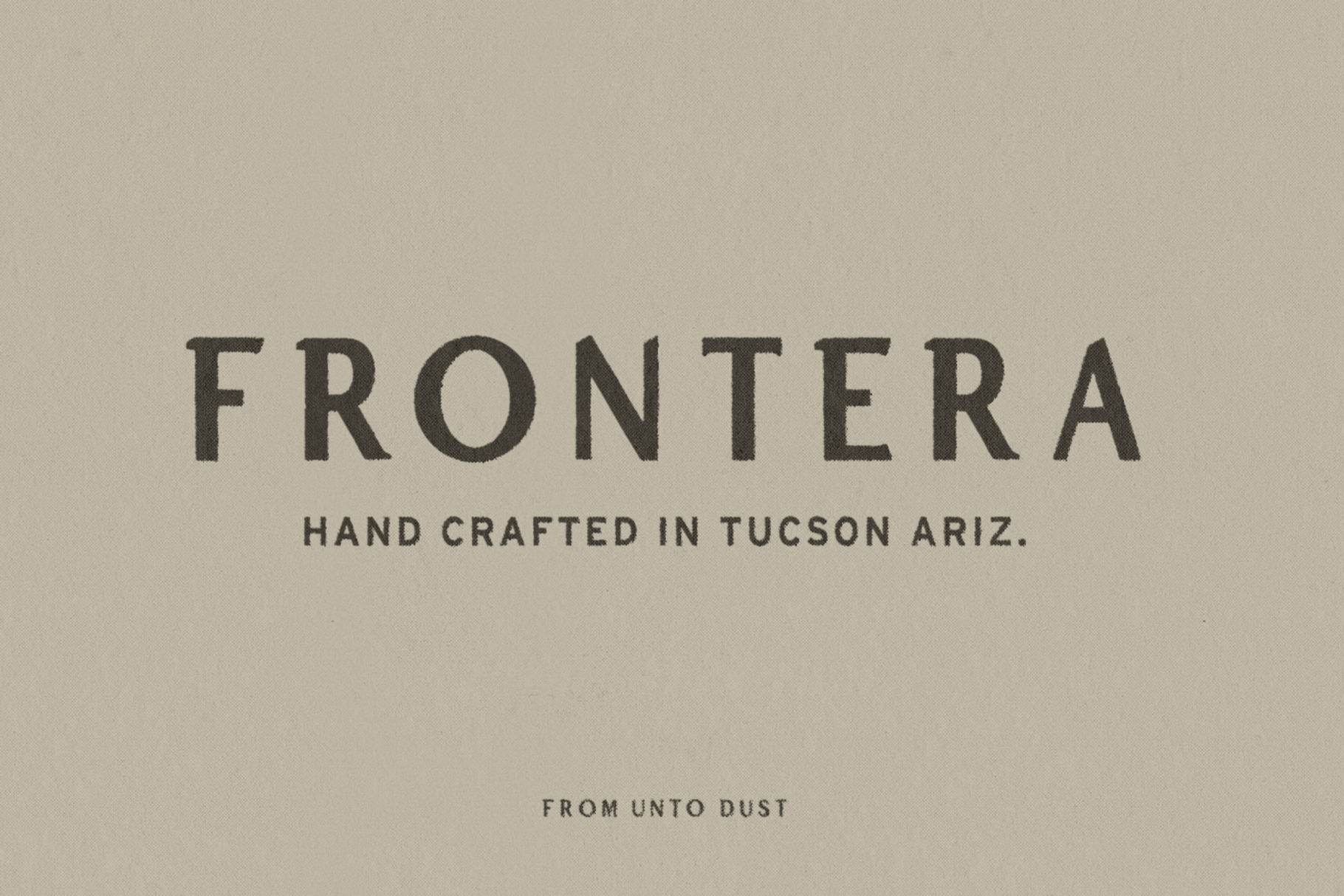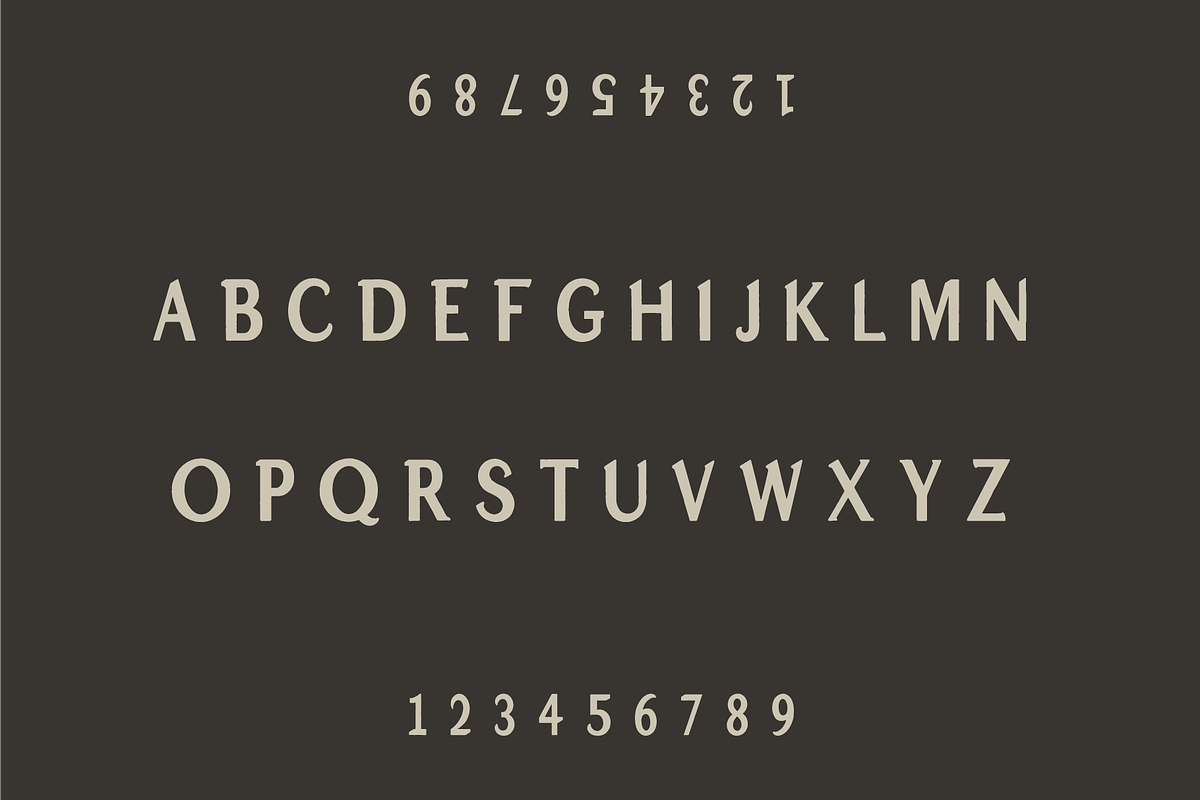
Frontera Hand Crafted Font
Frontera is a Hand Crafted Font inspired by the Winters of the Wild Wild West. This Font was Hand Drawn to create a feeling of Romanticism for the changing Seasons and open Landscapes of the Southwest. Use this font on your Product Packaging, Merchandise, Seasonal Cards or any Project you need a Unique, Hand Crafted font for.
This Font comes with Western European Characters as well as some Special Characters